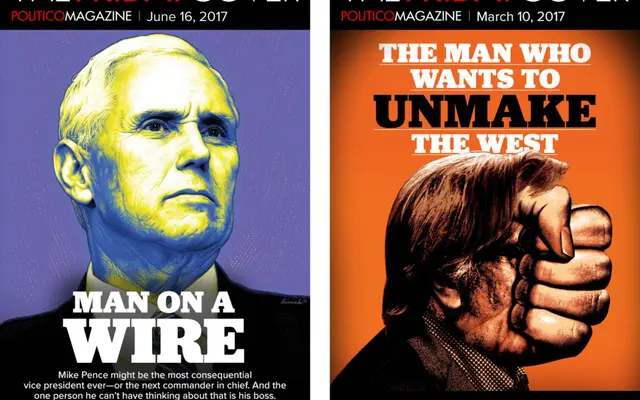
Jubilat
Darden Studio · Josh Darden · 2008
Jubilat specimen from Darden Studio
A Clarendon-style slab serif by Josh Darden spanning twelve weights, designed for headlines, decks and sidebars with generous curves and high contrast.
Released in 2008 and honoured by the TDC, Jubilat draws on the history of the Clarendon slab to build a 24-style family running from Hairline to Black with matching italics throughout. A large lowercase, high stroke contrast and efficient spacing in both axes make it equally at home in editorial hierarchies and political campaign materials. Its client list includes Bernie Sanders' website, Politico and Monday Design.
Darden Studio explicitly classifies Jubilat as a slab serif in the Clarendon style, characterised by bracketed serifs, high contrast and a large lowercase — all features consistent with that 19th-century tradition.